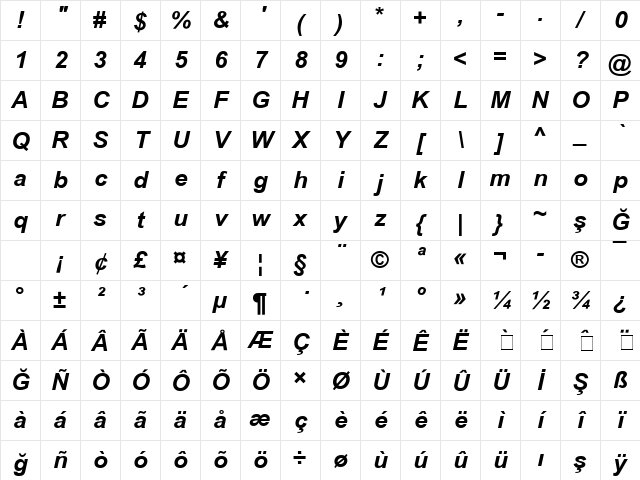
Arial2 Bold Italic Turkce
Style: Bold Italic Turkce
Design Context for Arial2
Arial2 is a composed and adaptable typeface that performs quietly and consistently across a wide range of design contexts. The slanted form adds forward momentum and visual energy. Its bold stroke weight gives it real presence on the page.
Pro Tip: Use Arial2 for emphasis, pull quotes, and subheadings where its slanted energy can add rhythm to the layout.